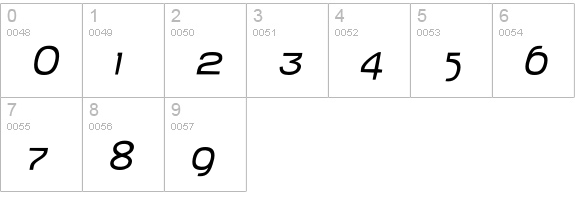
BabyMinePlumpOblique Font Details
Introducing BabyMinePlumpOblique font, the perfect blend of charm and elegance. This delightful typeface captures the essence of innocence and playfulness, making it the ideal choice for any design project that requires a touch of whimsy. With its plump and rounded characters, BabyMinePlumpOblique font brings a sense of warmth and friendliness to any text. Each letter is lovingly crafted with a gentle slant, adding a touch of uniqueness and personality to your designs. Whether you're creating invitations for a baby shower, designing adorable nursery decor, or even crafting heartwarming greeting cards, BabyMinePlumpOblique font is sure to captivate your audience. Its versatility allows it to shine in a variety of contexts, from children's books to branding materials. The best part? BabyMinePlumpOblique font is available for free download at FontsMarket.com. Now you can add this delightful font to your collection without breaking the bank. Just imagine the endless possibilities that await you as you explore the creative potential of this whimsical typeface. Don't miss out on the opportunity to infuse your designs with a sense of joy and innocence. Download BabyMinePlumpOblique font today and let your imagination run wild. Transform your projects into works of art that will bring smiles to faces and warmth to hearts.